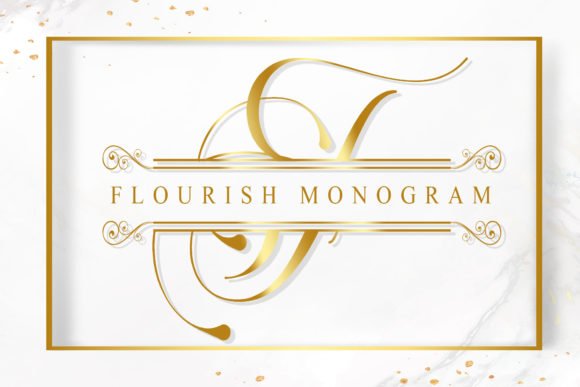
The Perfect Monogram for Your Dream Wedding
As I sat at my desk, surrounded by scraps of paper and half-finished designs, I couldn’t help but feel a surge of excitement whenever I thought about my upcoming wedding. The flowers, the cake, the music – it all seemed to be coming together perfectly. But what was missing was that special touch, that unique element that would make our special day truly unforgettable.
That’s when I stumbled upon the Flourish Monogram Font – a beautiful, elegant monogram that added a romantic and sophisticated touch to any design. It’s perfect for wedding projects, and I couldn’t wait to incorporate it into my own wedding stationery. With its intricate flourishes and classic charm, the Flourish Monogram Font is a valuable asset for any designer looking to add a touch of luxury to their designs.
Flourish Monogram Font Key Features
- Unique Characteristics: The Flourish Monogram Font features intricate flourishes and elegant monogram designs, making it perfect for creating luxurious and sophisticated branding materials.
- Monogram Options: The font includes a variety of monogram options, including initials, shapes, and patterns, allowing users to customize their designs to suit their needs.
Flourish Monogram Font Review
I recently had the chance to work with the Flourish Monogram Font, and I must say it’s a lovely addition to any design project. ✨ One of the things I appreciate most is its elegant, whimsical feel, perfect for creating a touch of sophistication in invitations, branding, or even wedding stationery. ✨ The font’s flowing curves and delicate flourishes make it an excellent choice for designers looking to add a sense of luxury and refinement to their work.
- Elegant, whimsical feel perfect for invitations, branding, or wedding stationery.
- Flooding curves and delicate flourishes add a sense of luxury and refinement.
- Comes in a variety of weights and styles, allowing for versatility in design.
While I adore the Flourish Monogram Font, there are a few limitations that I’d like to mention: ⚠️ ⚠️ The font can be quite ornate, which may make it challenging to read in certain situations, especially at smaller font sizes. Additionally, the extensive use of flourishes can make it difficult to achieve crisp, clean lines in your design. It’s essential to balance these elements to avoid visual clutter.
Overall, I’m impressed with the Flourish Monogram Font’s potential to elevate any design project. While it may require some careful handling to avoid its limitations, the rewards are well worth the extra effort. I’d highly recommend this font to designers looking to add a touch of sophistication and elegance to their work.
Flourish Monogram Font is ideal for:
Personalized gifts and decorations
Business logos and branding
Special occasion cards and certificates